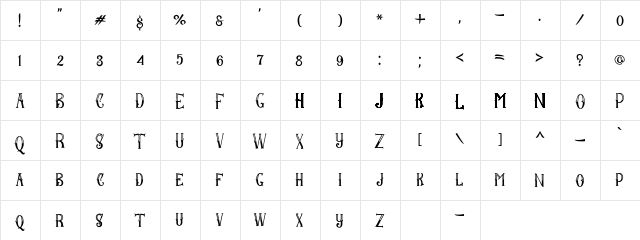
BangorE Regular
Design Context for BangorE Typeface
BangorE carries an unsettling edge — its distorted letterforms are built to unsettle, perfectly suited to horror, Halloween, and dark creative work.
Ideal for Halloween projects, horror film titles, haunted house signage, and dark editorial design.
Font Pairing: Pair with a clean neutral sans-serif for body copy to let BangorE's character lead without overwhelming the composition.
Pro Tip: BangorE works best as a headline or focal element. Pair it against plain, neutral body text to amplify the contrast.